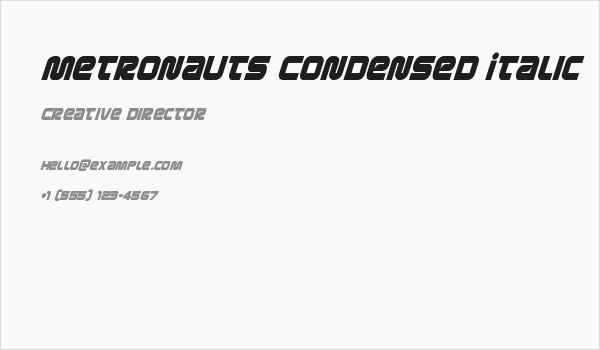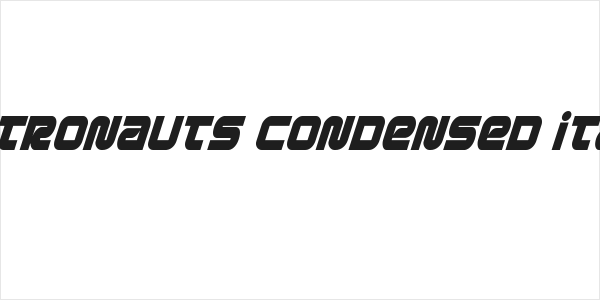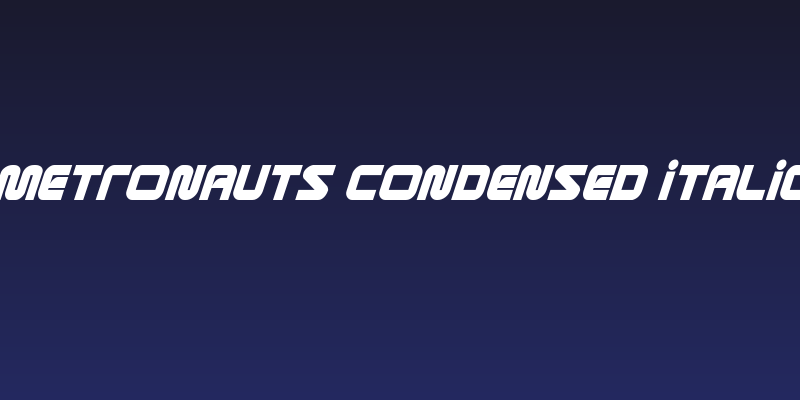
Metronauts Condensed Italic Font
Metronauts Condensed Italic Description
This font features a futuristic and dynamic design, characterized by its condensed and italicized letterforms. The bold strokes and angular shapes give it a modern and tech-inspired appearance. The uppercase and lowercase letters maintain a consistent style, with a slight slant that adds a sense of motion and speed. The numerals and special characters are designed to match the overall aesthetic, making it suitable for projects that require a contemporary and energetic look. The font's unique style makes it stand out, perfect for capturing attention in various design contexts.
| Proposed Projects | Ideal for tech branding, sci-fi movie posters, video game titles, and modern advertising. |